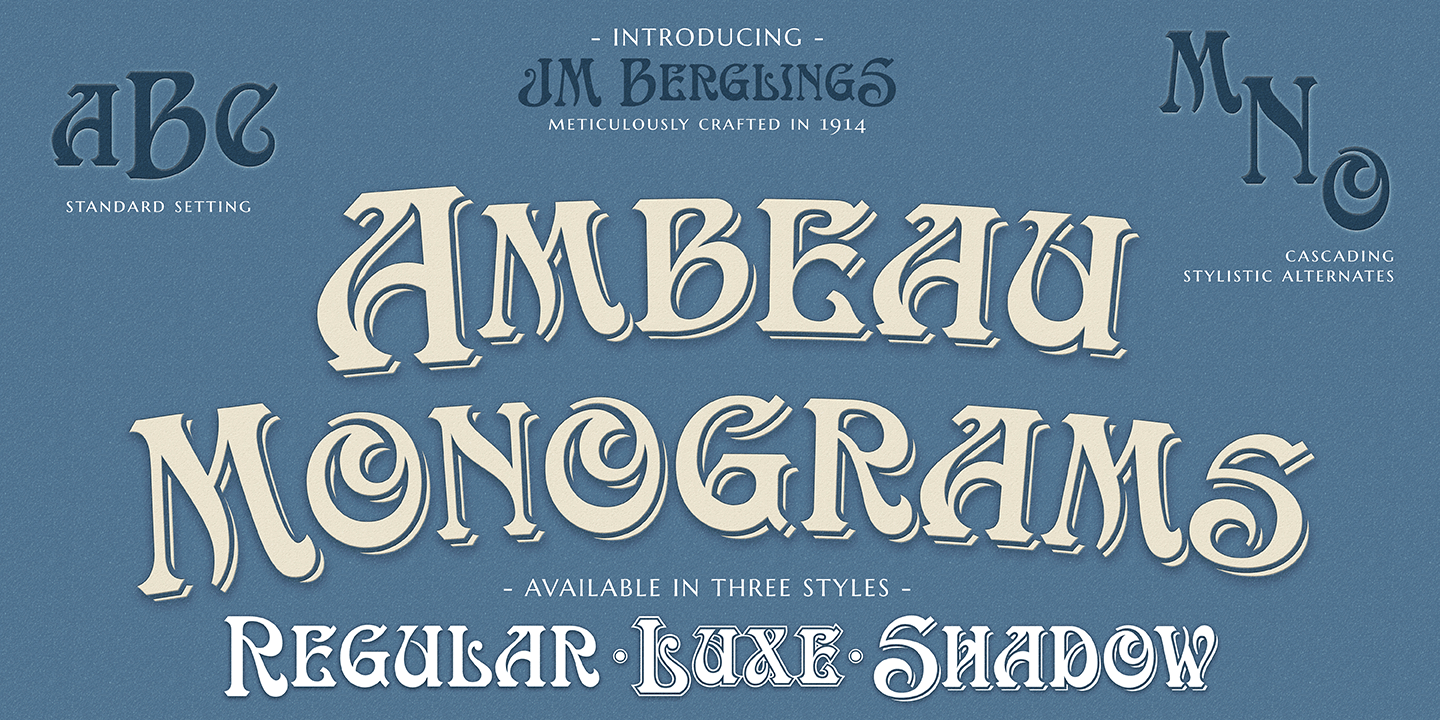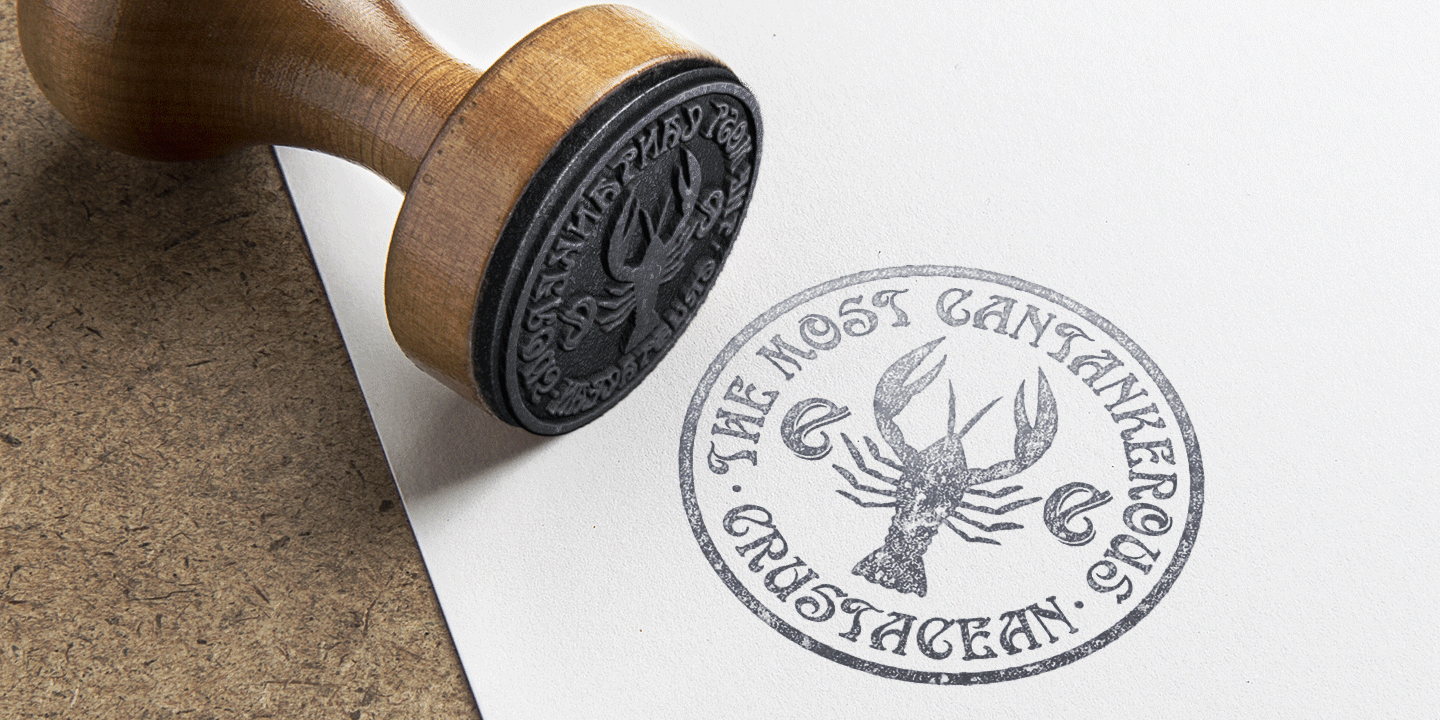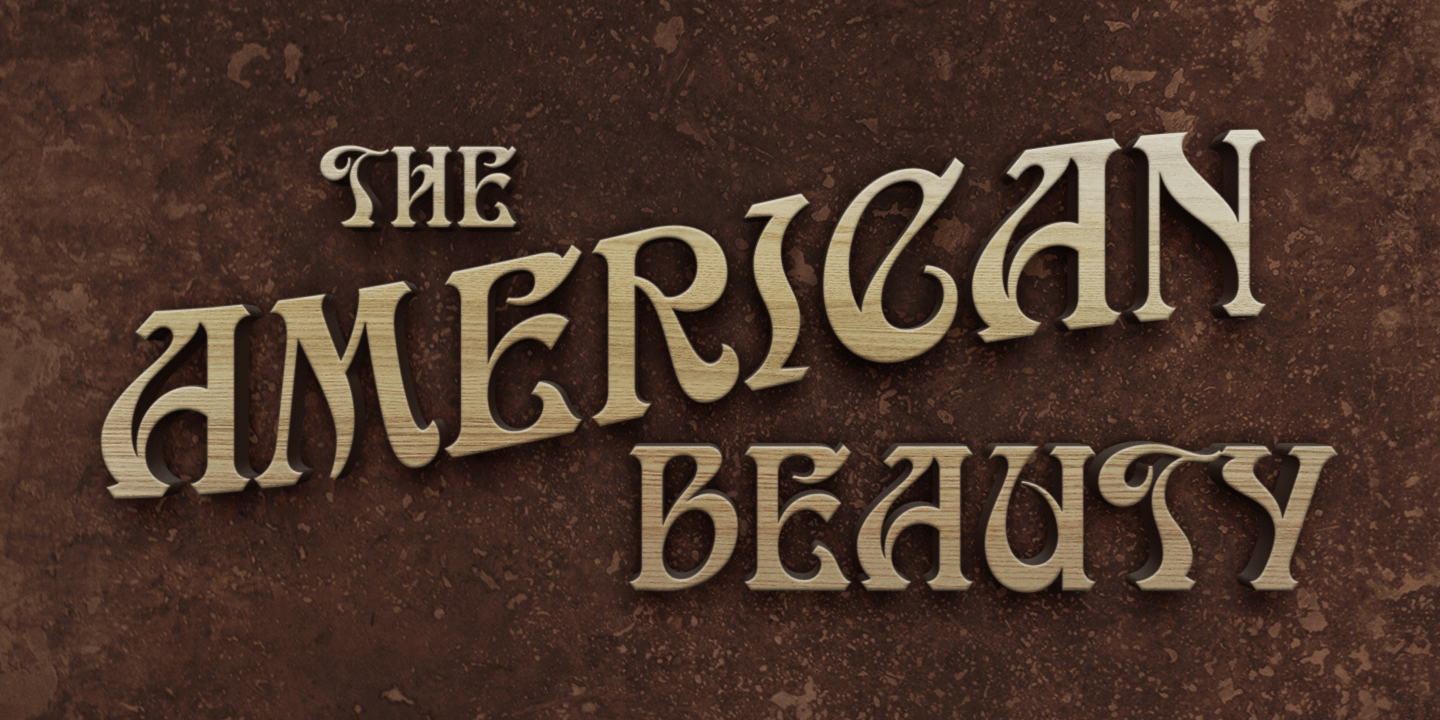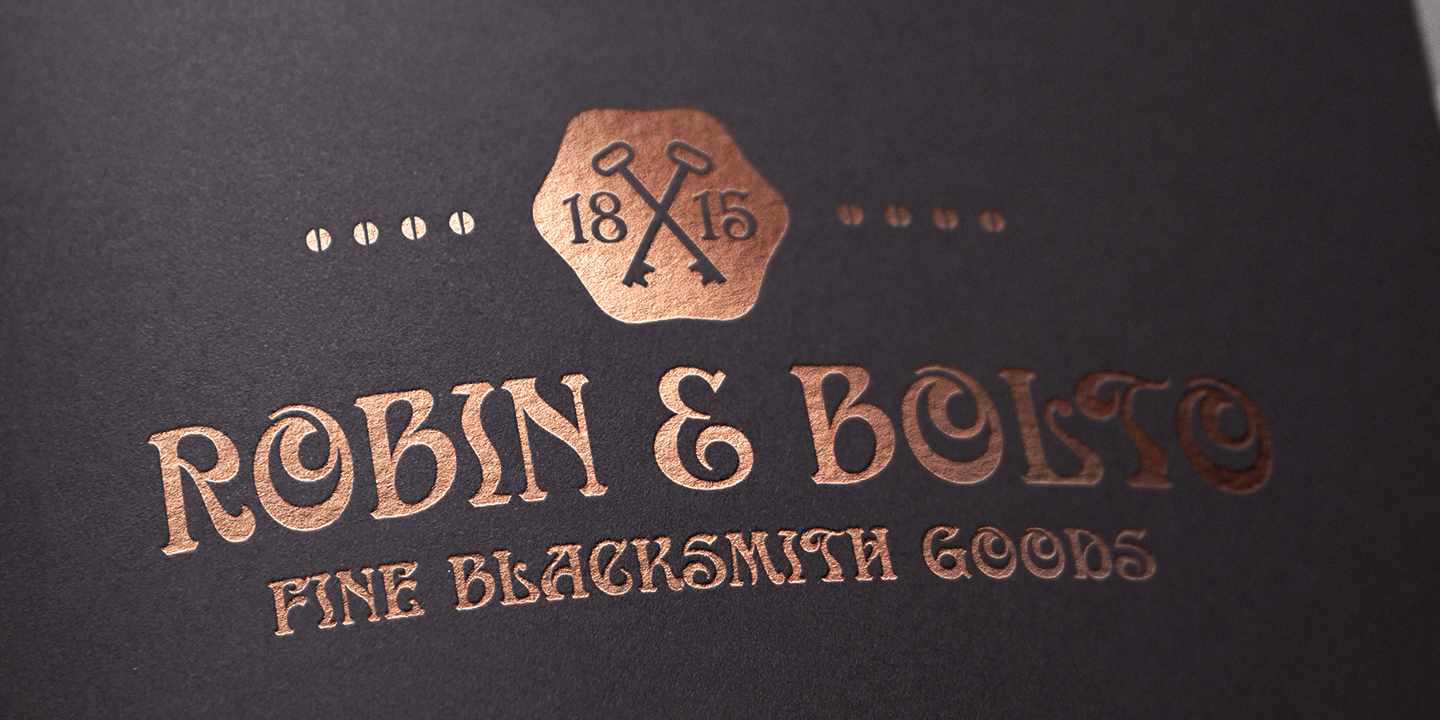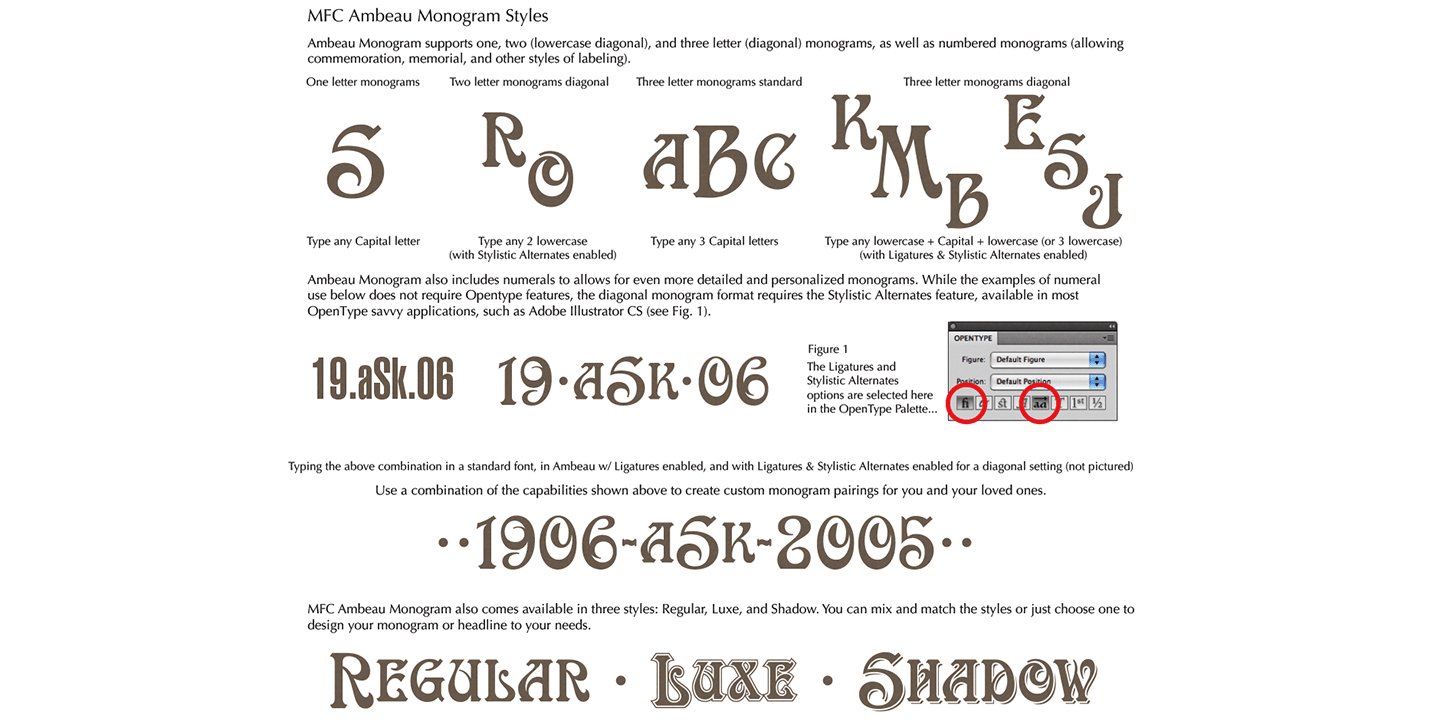
MFC Ambeau Monograms
The source of inspiration for MFC Ambeau Monogram is a letter set from the book, Art Alphabets and Lettering by J.M. Bergling, published in 1914. This elegant historical style was simply dubbed, 'the American Beauty?.
MFC Ambeau Monogram can create one, two, or three letter monograms as well as basic headline and titling settings. By default, Ambeau Monogram types in a horizontal format, but by utilizing OpenType Stylistic Alternates, you can typeset in a three smallcap or smallcap/Capitals/smallcap diagonal format as well! It is a refined look that is perfect for a wide array of classic personalization settings. A PDF guidebook for MFC Ambeau Monogram is included in the font package.